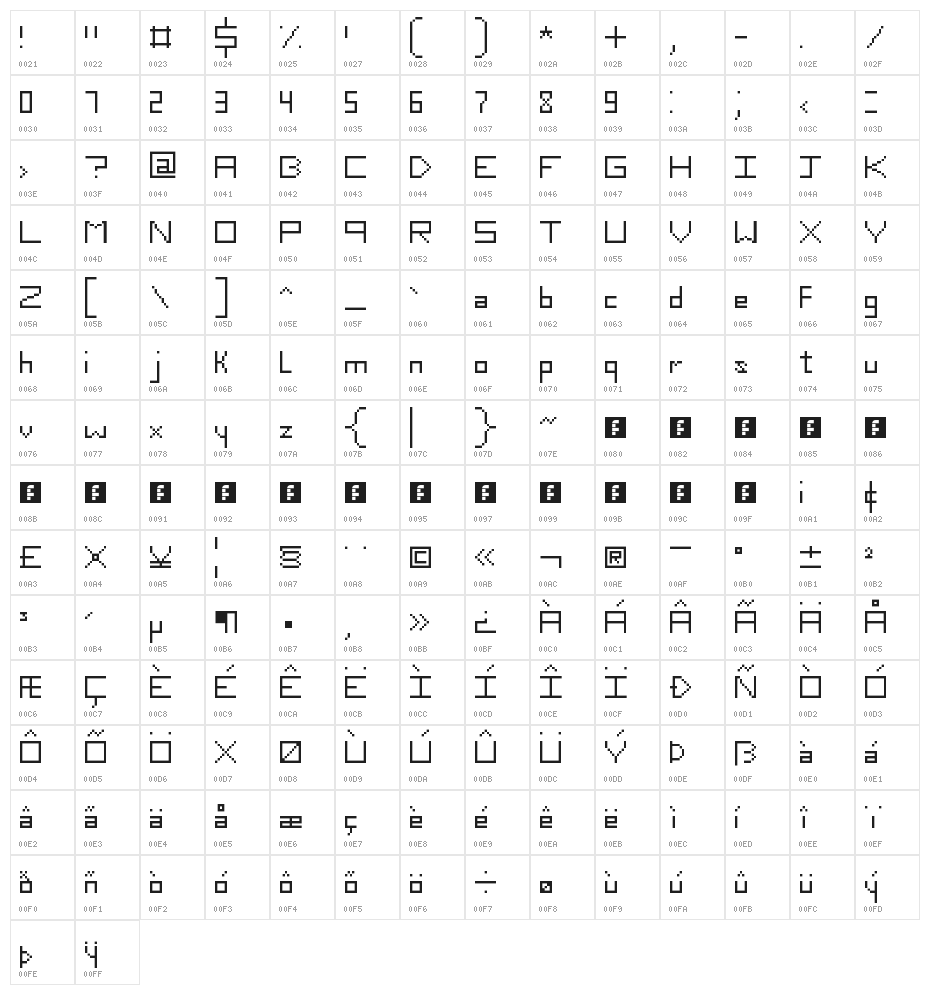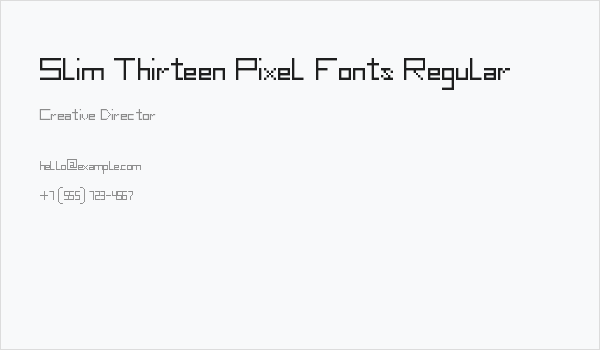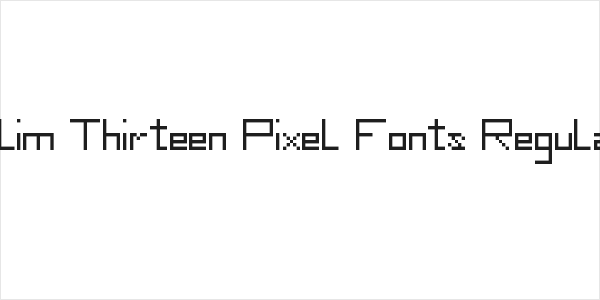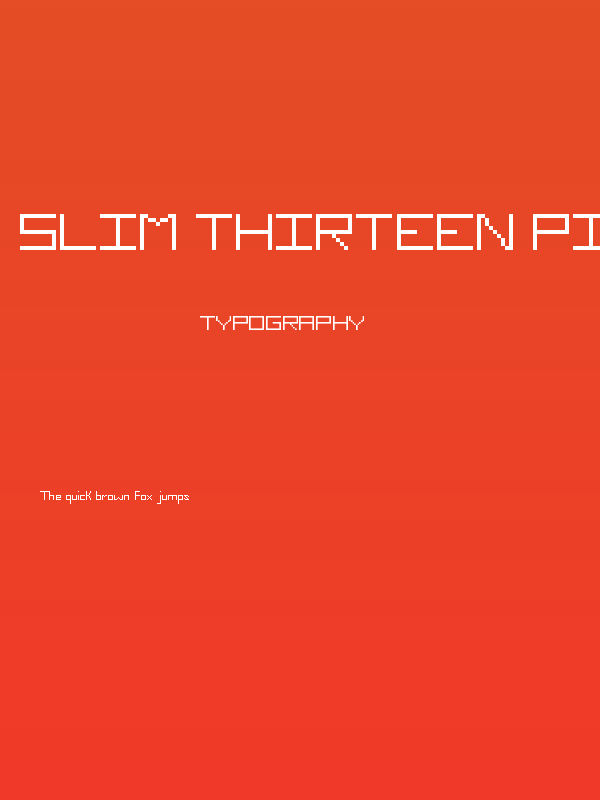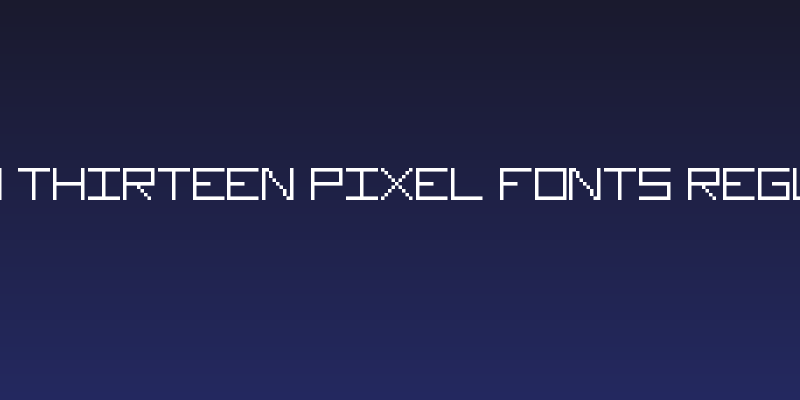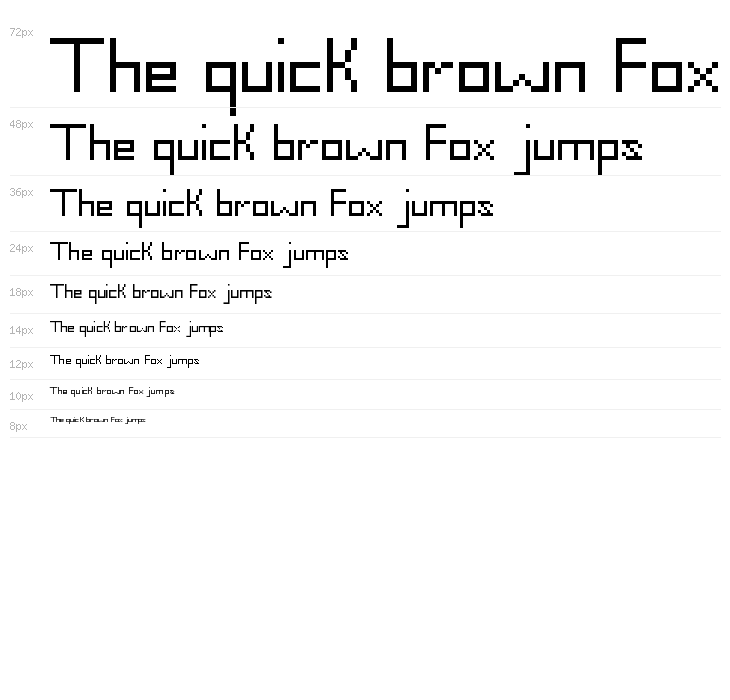
Slim Thirteen Pixel Fonts Regular Font
Slim Thirteen Pixel Fonts Regular Description
This font features a distinct pixelated style, reminiscent of early digital displays and retro video games. Each character is constructed with a grid-like precision, giving it a blocky and geometric appearance. The uppercase letters are uniform in height, while the lowercase letters maintain a consistent baseline with slight variations in height for characters like 'b', 'd', and 'h'. Numbers are clear and legible, adhering to the same pixelated structure. Special characters are designed to complement the overall aesthetic, maintaining the same grid-based design. This font is ideal for projects that require a nostalgic or digital theme, offering a unique blend of simplicity and retro charm.
| Overall Style | Retro |
| Use Case | Logos, Headlines, Digital displays |
| Proposed Projects | Ideal for retro video games, digital art projects, and nostalgic branding. |